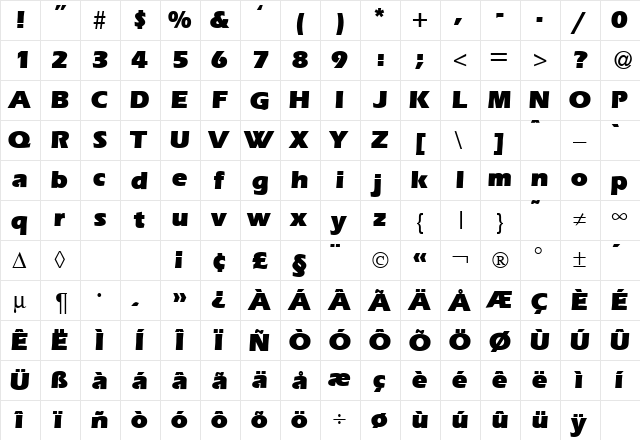
ErgoUltra DB Regular
Design Context for ErgoUltra DB Typeface
ErgoUltra DB is a composed and adaptable typeface that performs quietly and consistently across a wide range of design contexts.